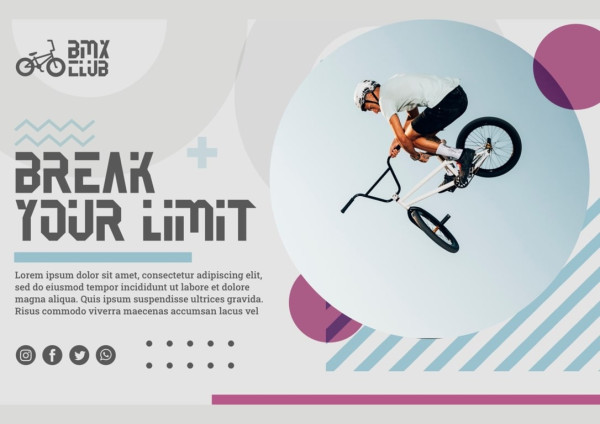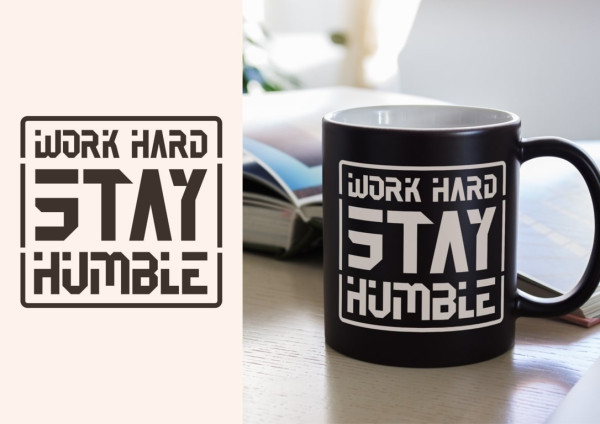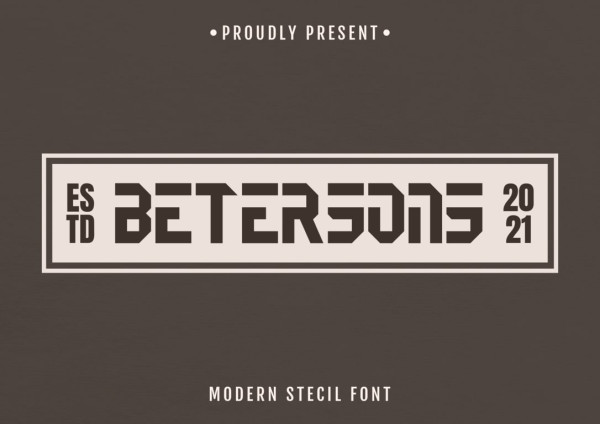
Betersons Font
Betersons Font is a versatile sans-serif font family that embodies a bold and impactful design. Its combination of simple and geometric elements results in a striking visual aesthetic. Whether it’s for print materials or web design, Opera can be applied to almost any type of design project. Unleash your imagination and witness your projects come to life with the dynamic and vibrant presence of Betersons fonts.